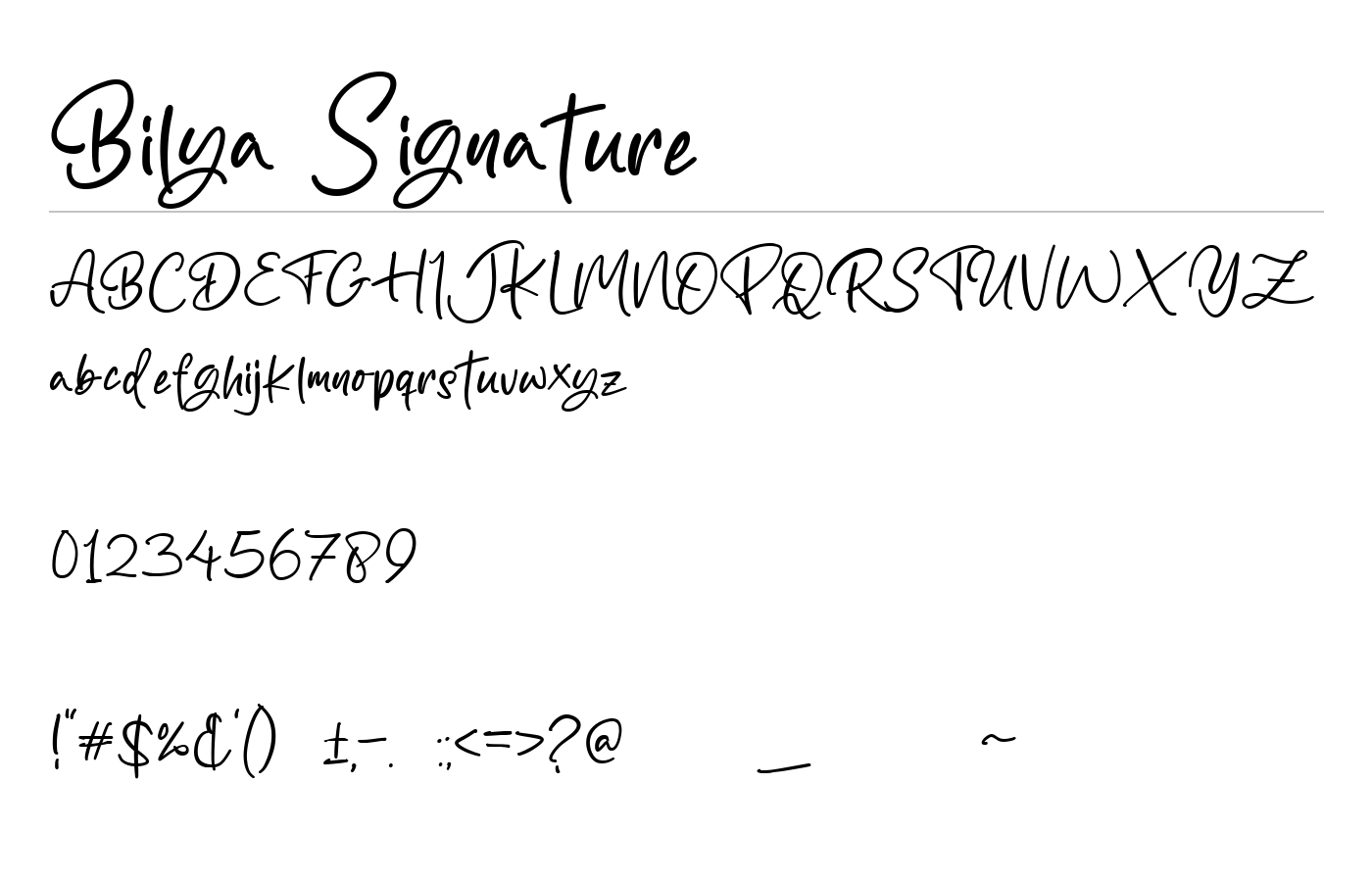
Bilya Signature is a handwritten script font that captures the natural flow and elegance of a personal signature. It features a light weight with slender, flowing strokes and a lively, slightly casual feel, making it ideal for branding, invitations, and creative projects that want a personal, approachable touch. This font works beautifully in logos, fashion branding, and social media graphics where a stylish, yet friendly and modern handwritten look is desired.
Bilya Signature Font
About Bilya Signature Font